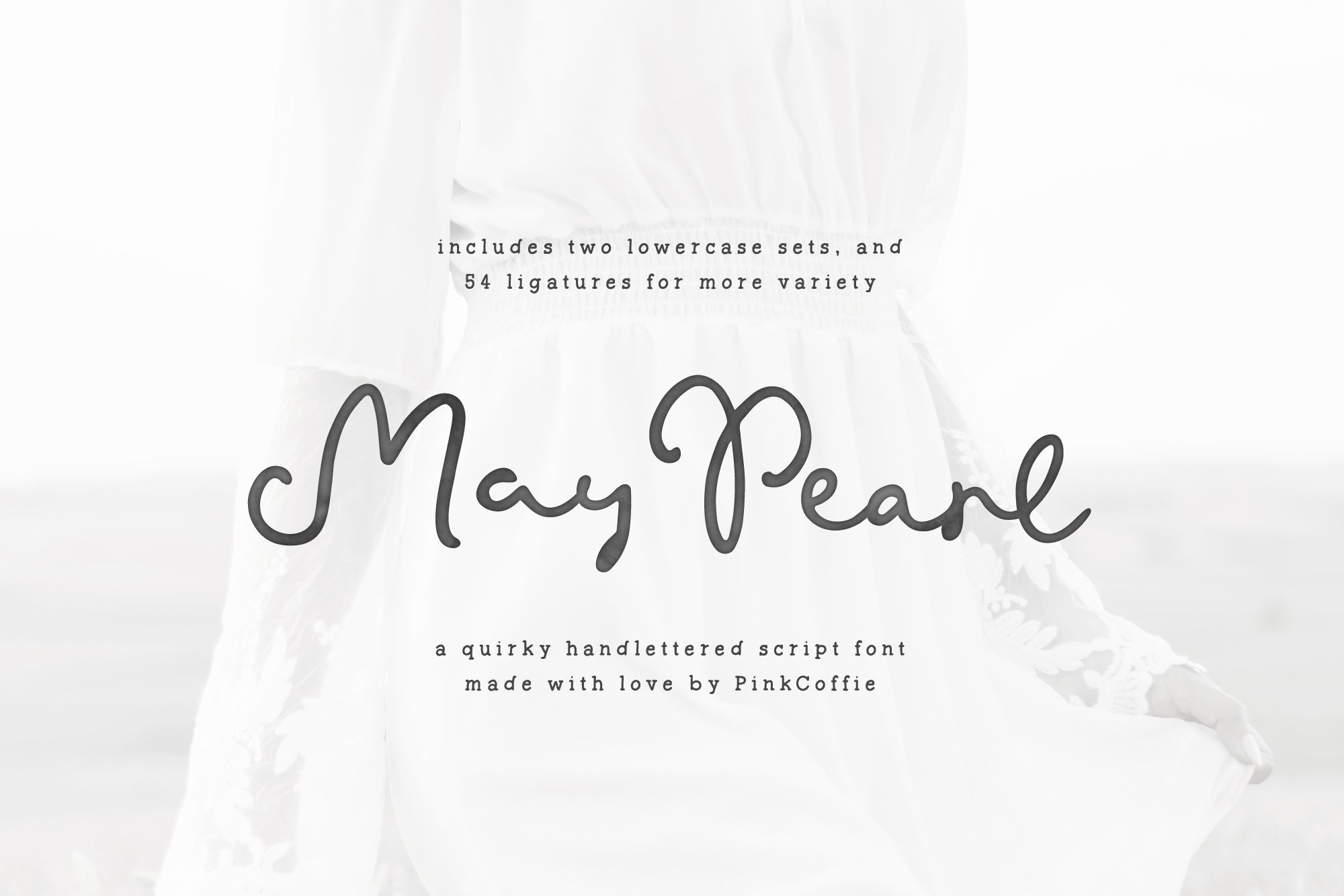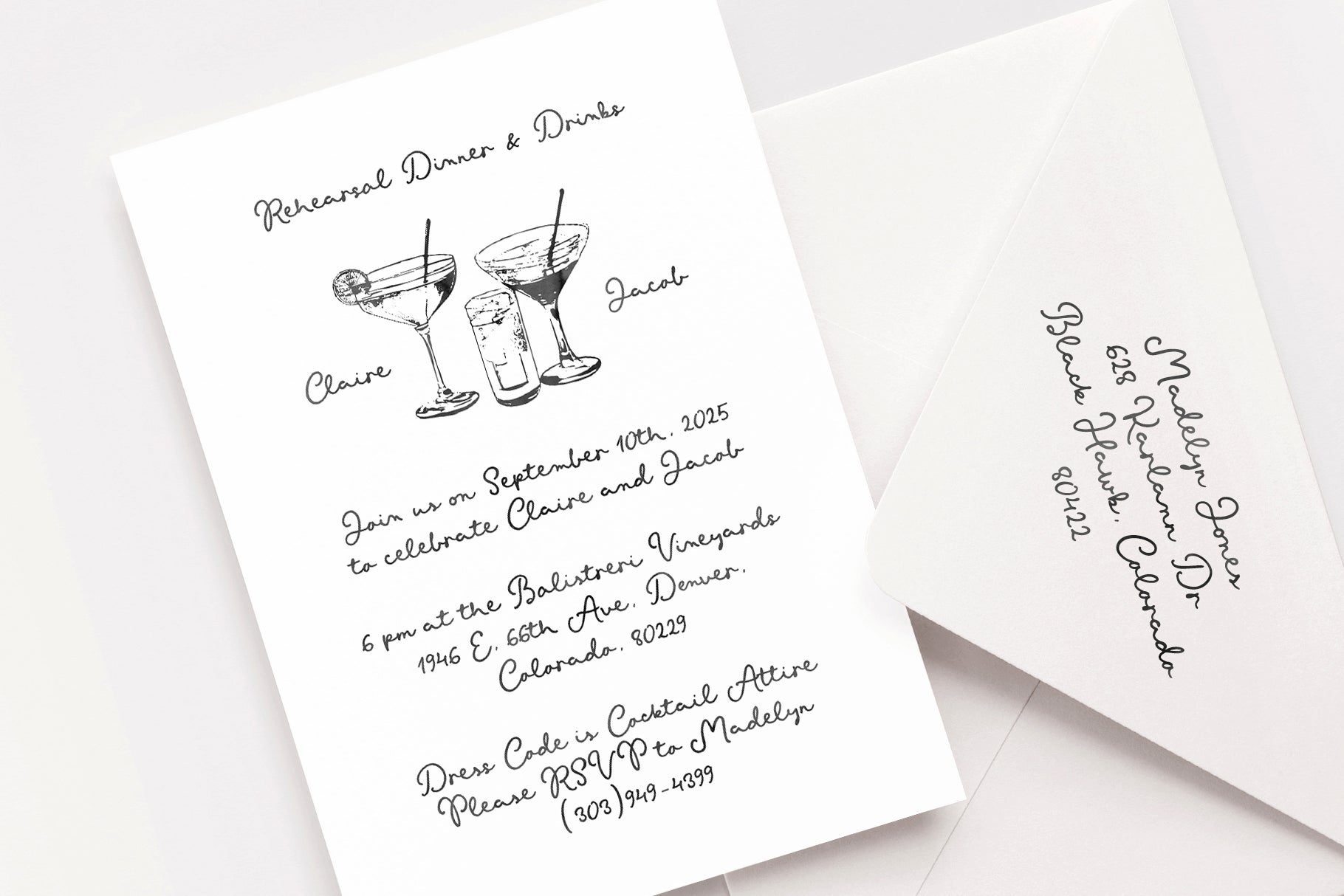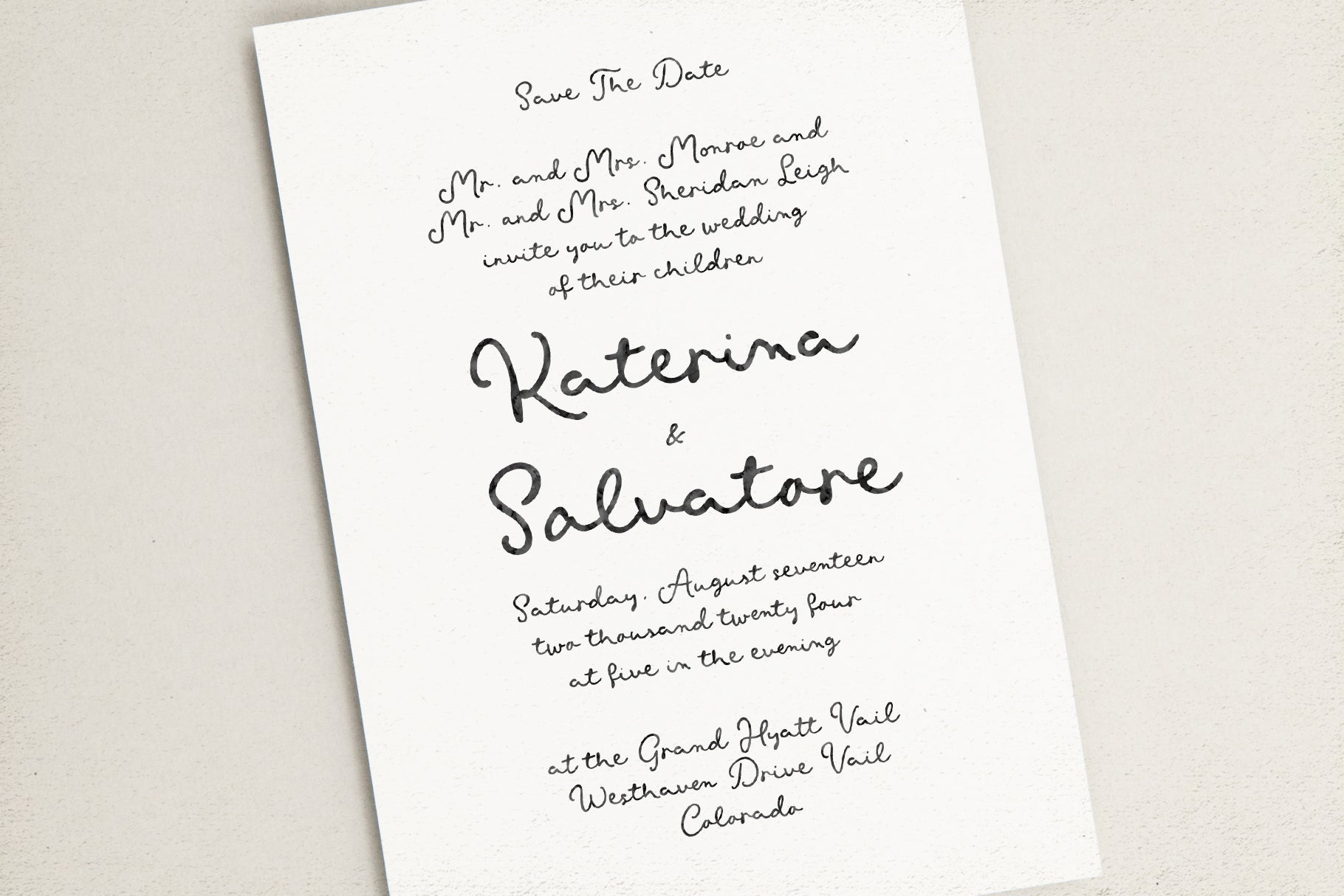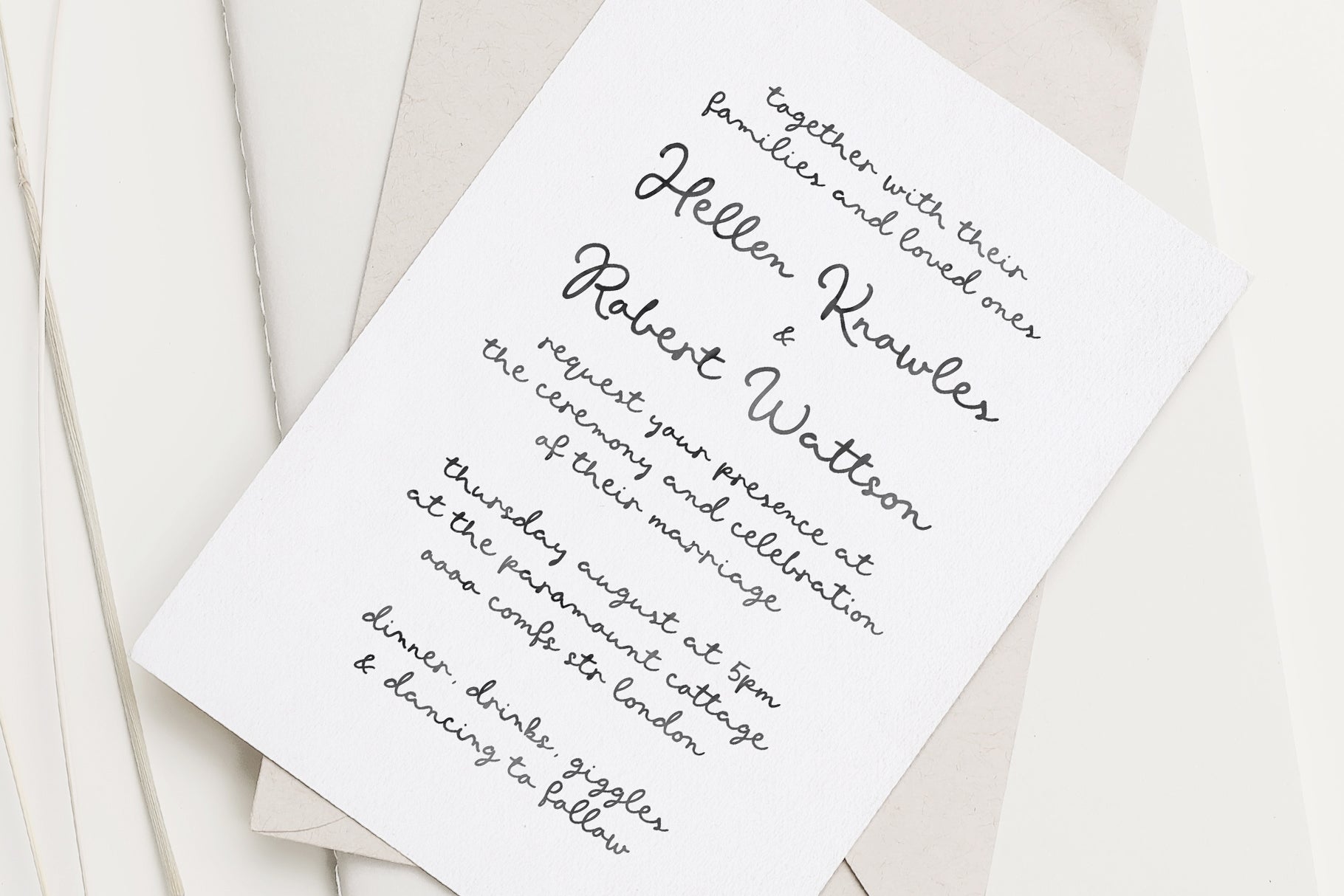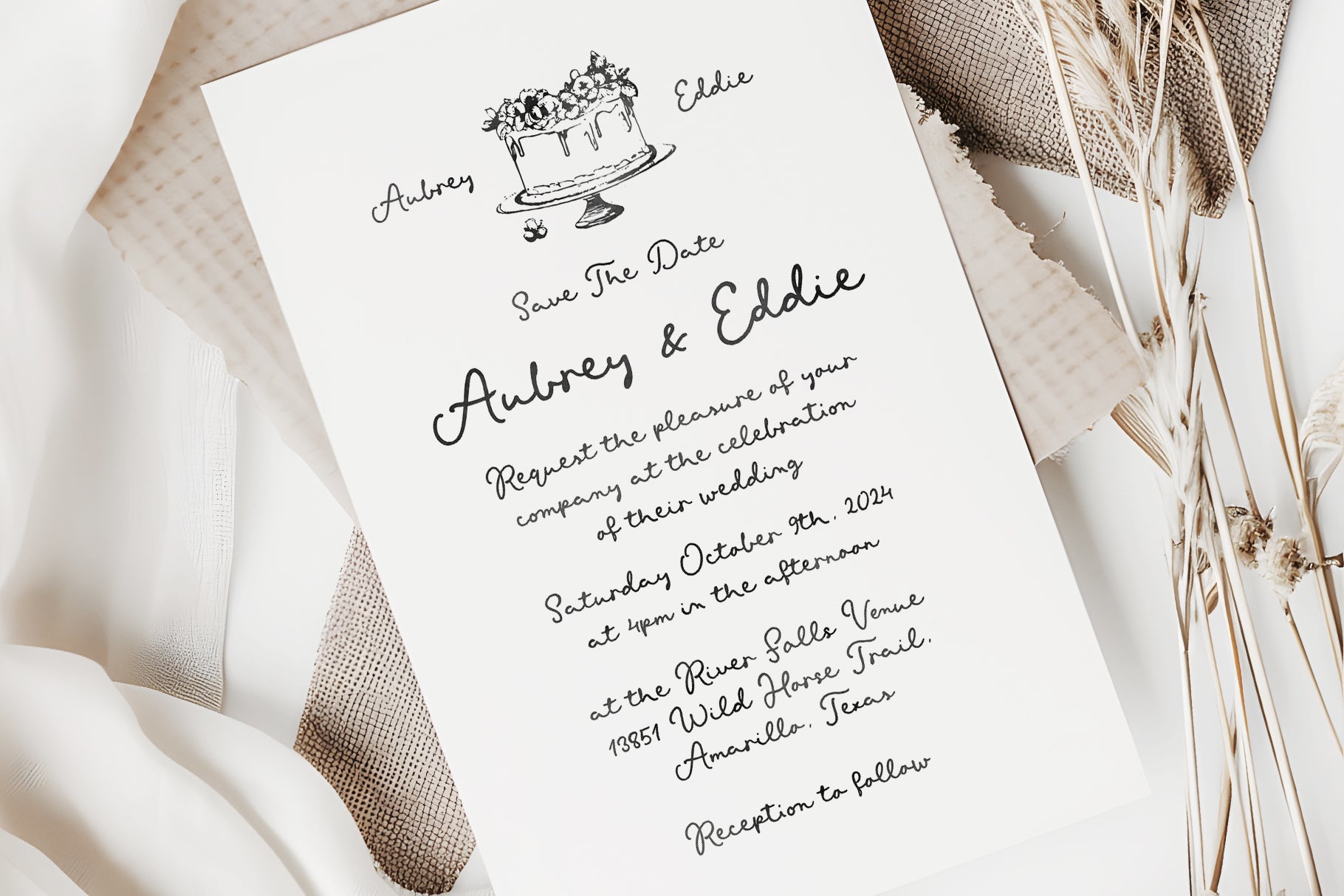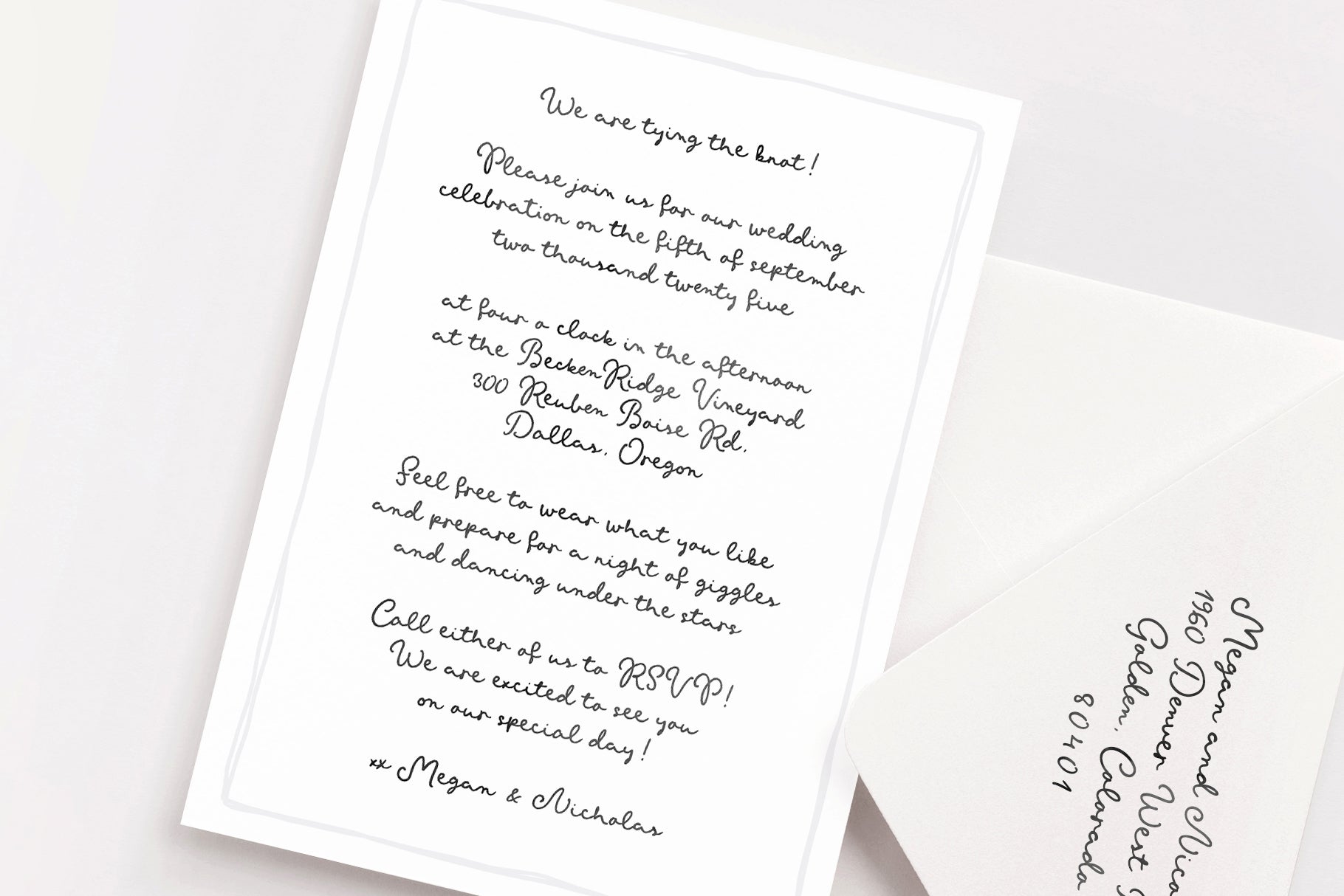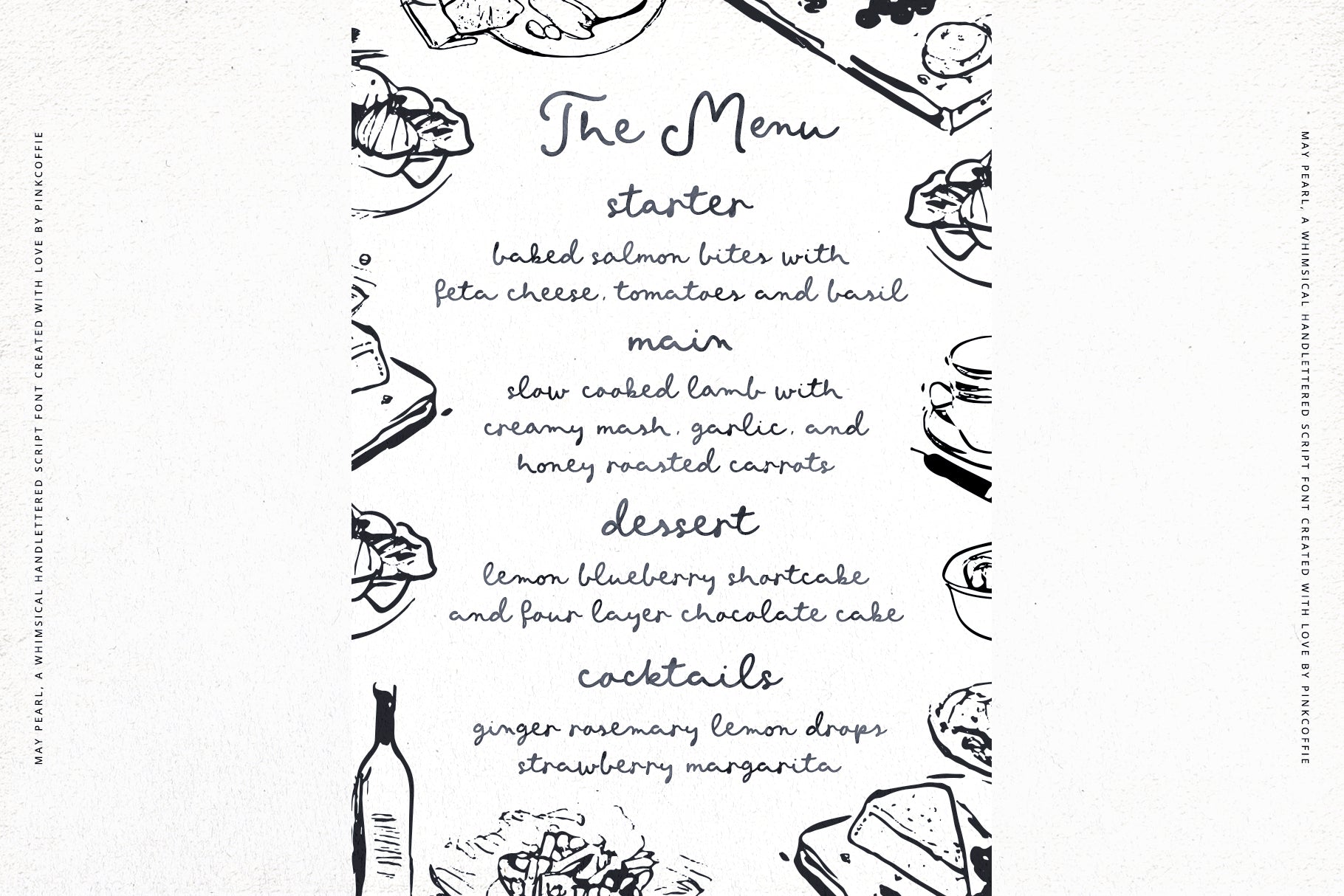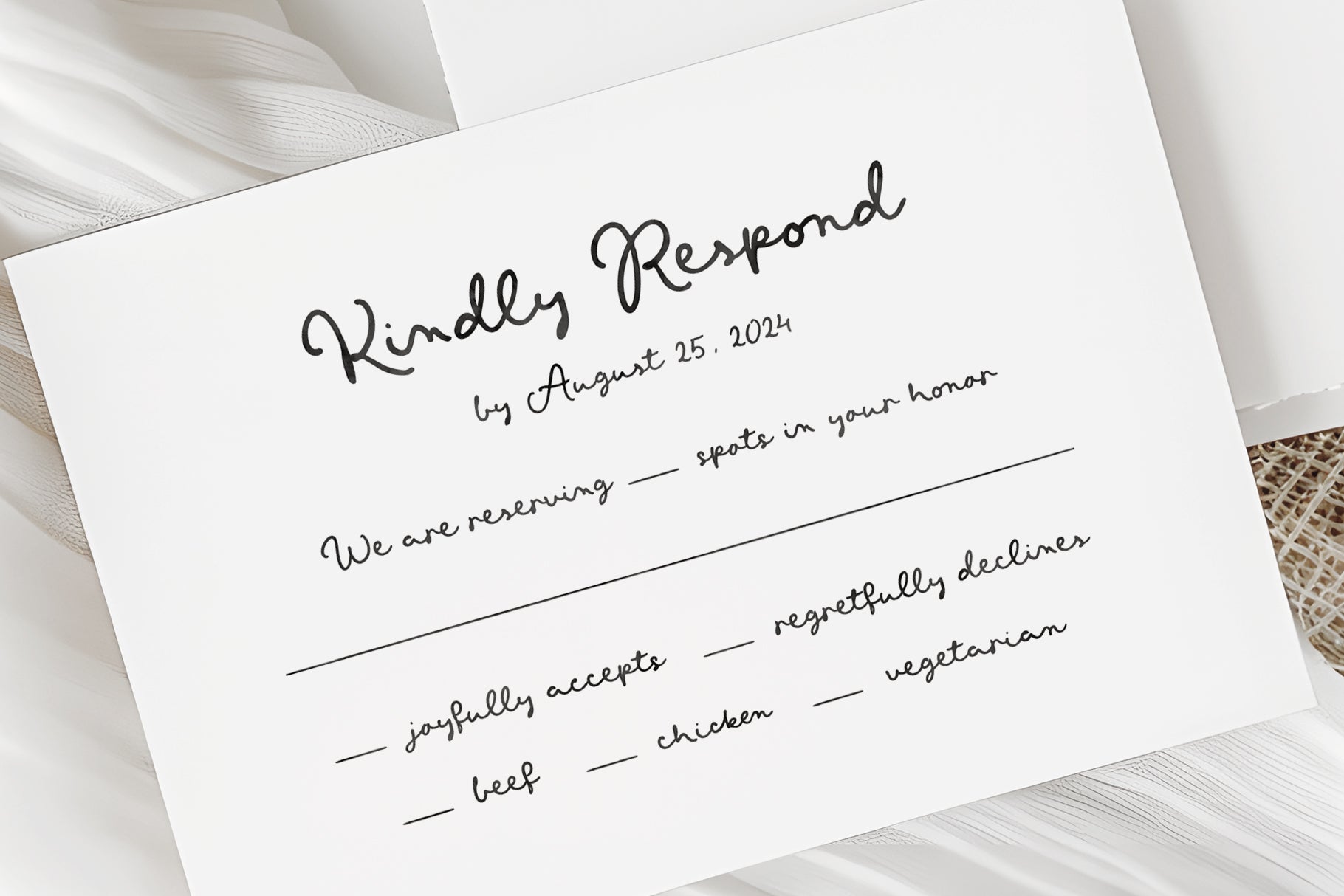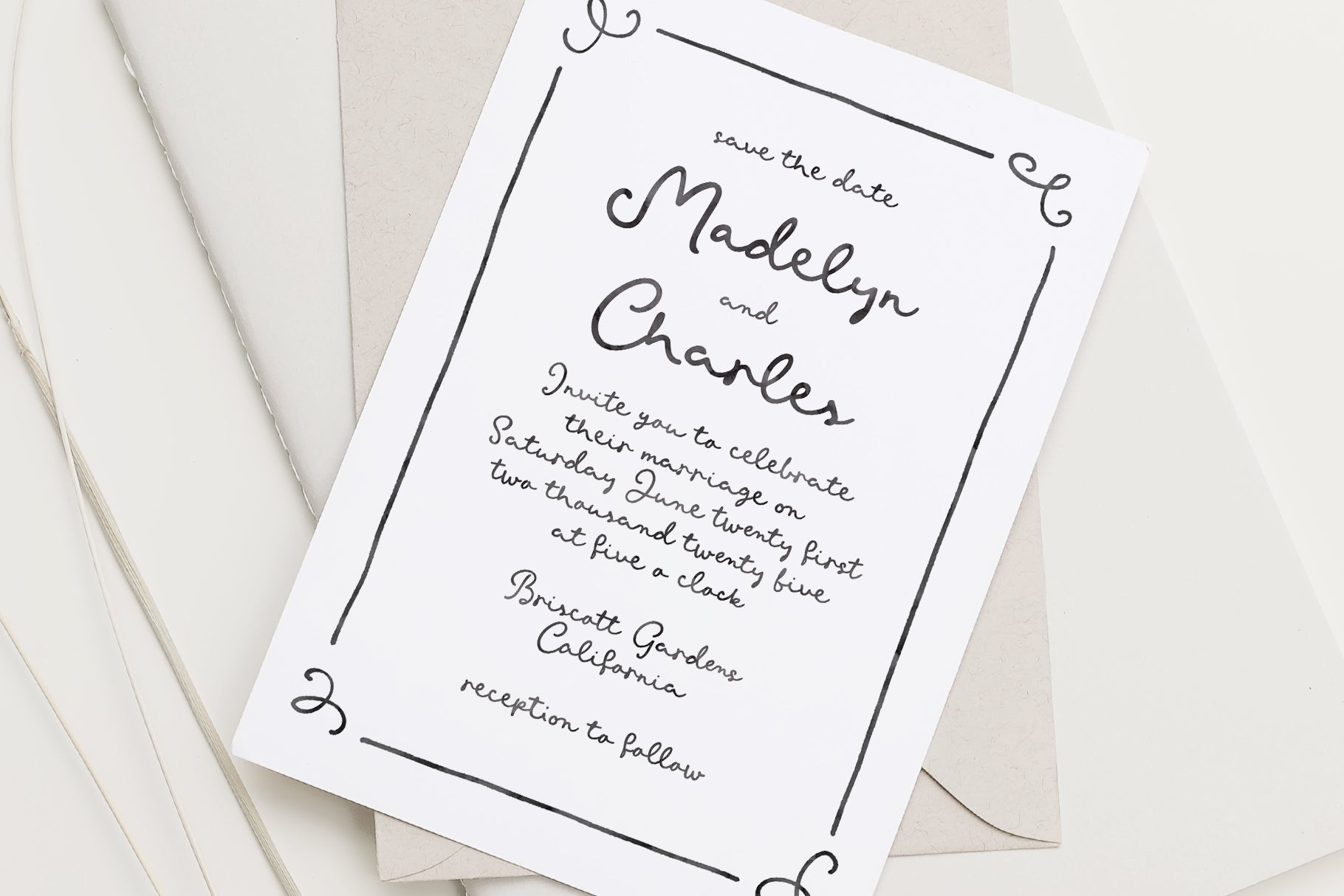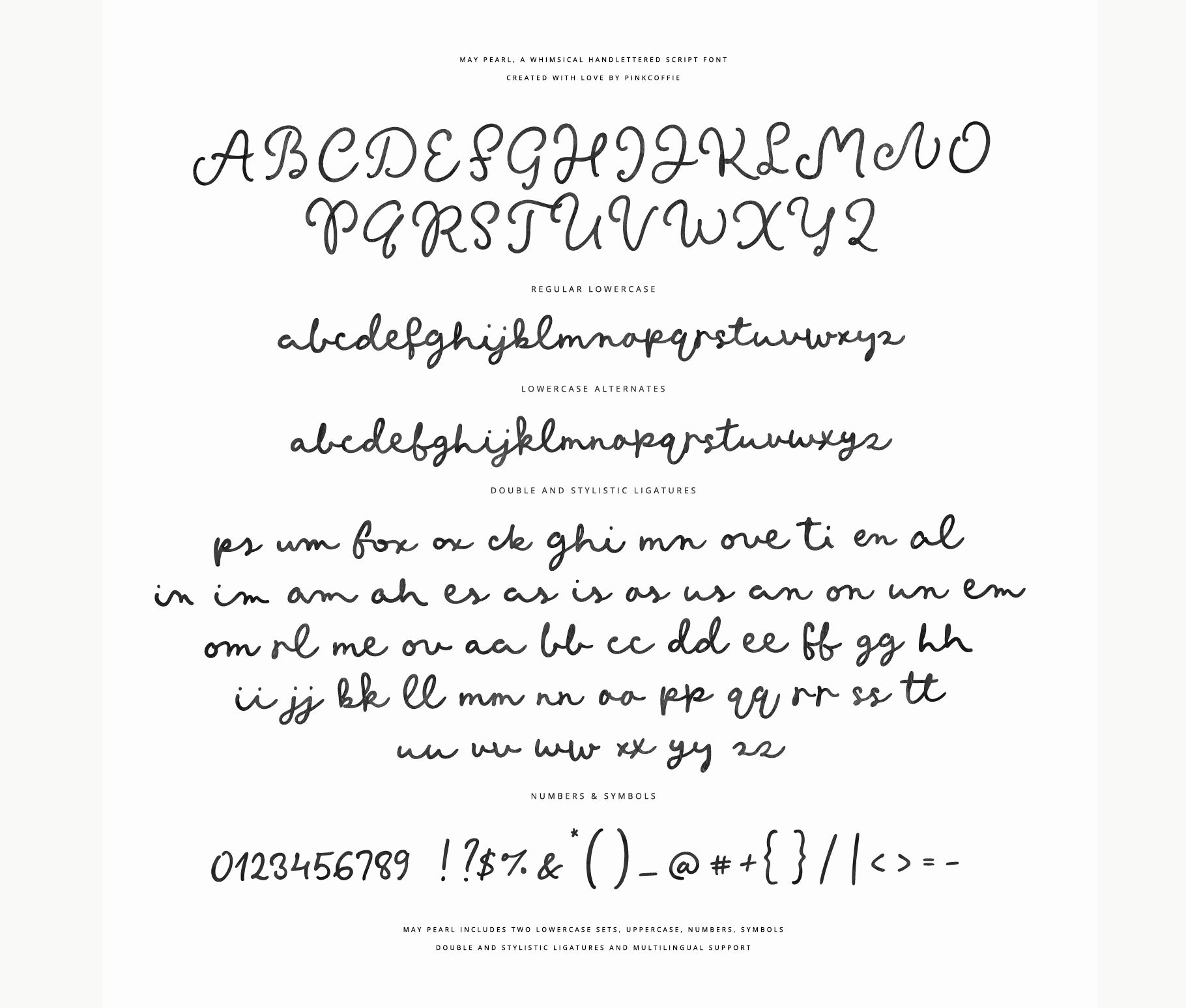
Say hello to May Pearl, a whimsical handwritten wedding script font with loads of hand-drawn character, and a touch of quirky chic. xx
This lovely handlettered script font is perfect for whimsical wedding invitations, bespoke stationery, quirky greeting cards, trendy art prints, logos, branding, social media graphics, websites, printables, planners, product packaging, and much much more!
- May Pearl - - the script font containing the two lowercase letter sets, 54 automatic ligatures more more variety, uppercase, symbols, numerals, and multilingual support.